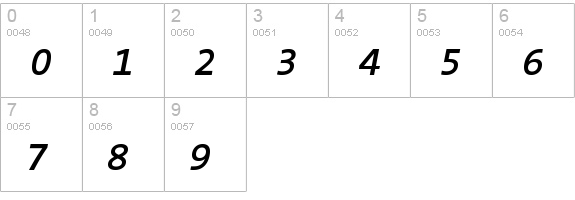
TheSans B6 SemiBold Italic Font Details
TheSans B6 SemiBold Italic is a sub-bold, structured, italic variant in the TheSans typeface family \xE2\x80\x94 well suited to sub-headlines and emphasised passages.
TheSans B6 SemiBold Italic font is a captivating and versatile typeface that effortlessly blends strength with elegance. Its semi-bold weight and italic slant create a perfect balance between assertiveness and sophistication, making it ideal for a wide range of design projects. With its clean and modern look, TheSans B6 SemiBold Italic font is suitable for various applications such as branding, advertising, editorial design, packaging, and more. Its distinctive letterforms convey a sense of confidence and professionalism, making any text stand out with an air of authority. This font's subtle italic inclination adds a touch of dynamism and fluidity to the characters, making them appear more dynamic and engaging. TheSans B6 SemiBold Italic font is the perfect choice for conveying a sense of movement and energy without sacrificing legibility. What's even better is that TheSans B6 SemiBold Italic font is available for free download at FontsMarket.com. Whether you are a professional designer, a student, or simply someone with a passion for typography, you can enjoy the benefits of this exceptional font without any cost. FontsMarket.com offers an extensive collection of high-quality fonts, and TheSans B6 SemiBold Italic font is just one of the many gems waiting to be discovered. Don't miss out on the opportunity to elevate your designs with TheSans B6 SemiBold Italic font. Download it for free at FontsMarket.com and unlock the potential to create visually stunning and impactful projects. Let this font be your creative companion, providing you with the tools to make a lasting impression.